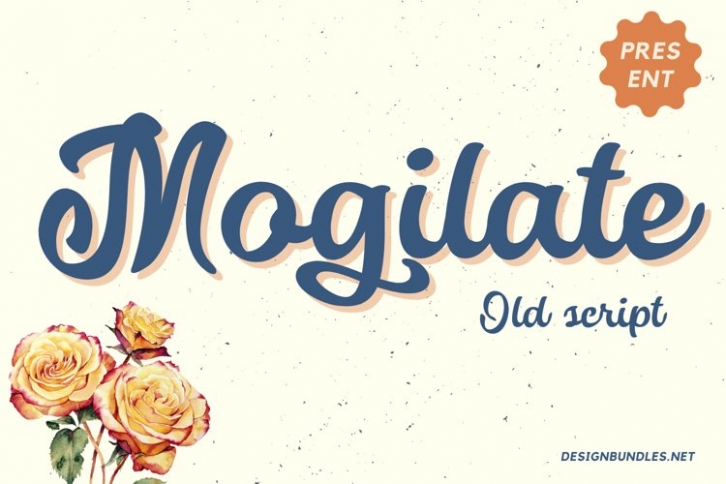
Mogilate is a trendy and unique font with an authentic style. It was designed by plusstore and it's a great choice for creative people who need such a font. It was released on June 5, 2021 and the file size is 7.70 MB. Mogilate will add an organic vibe to any design idea!